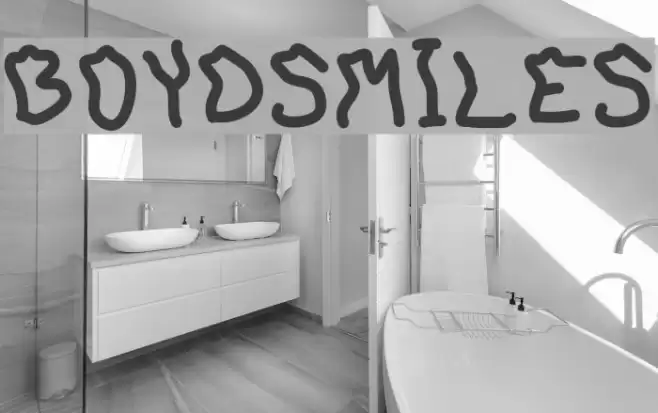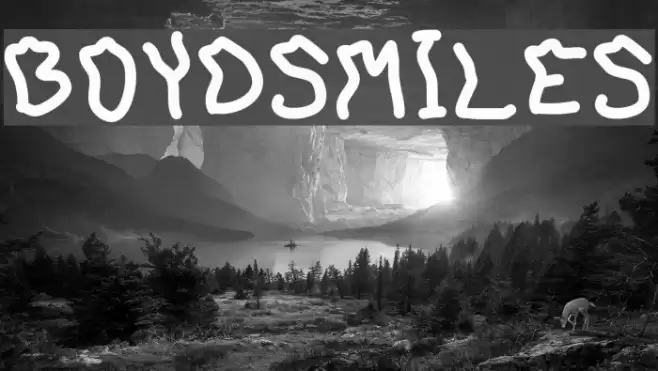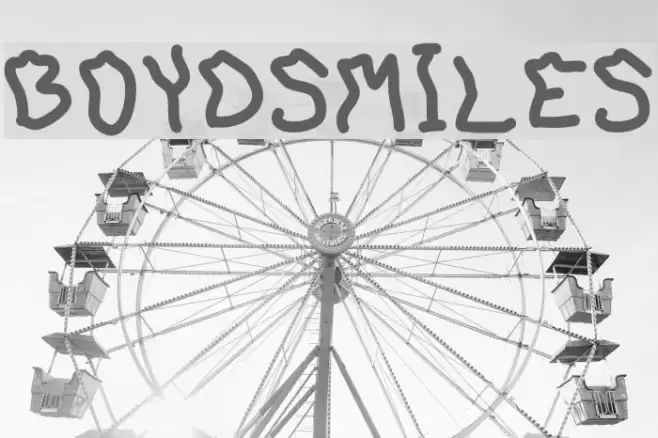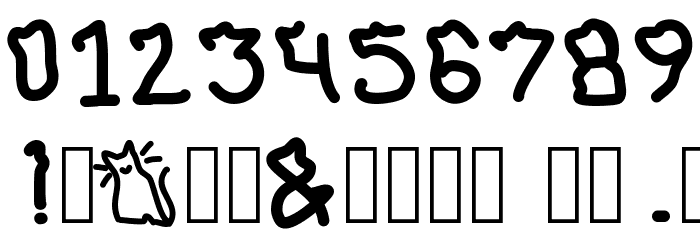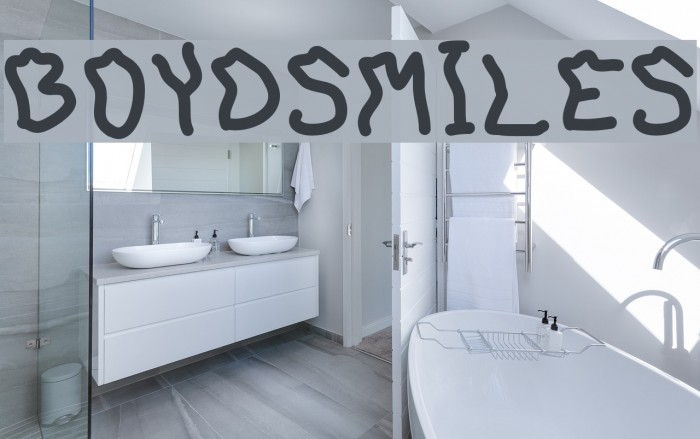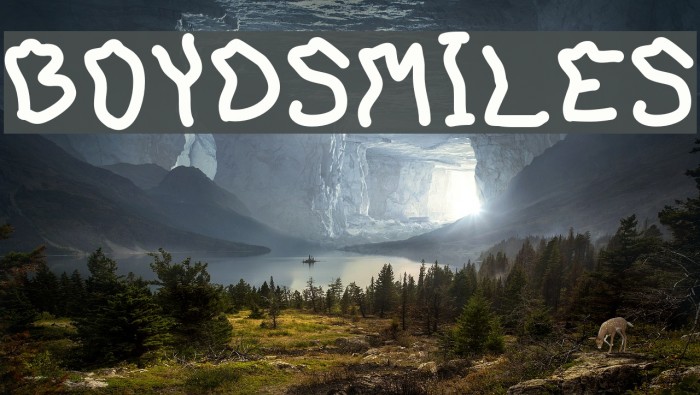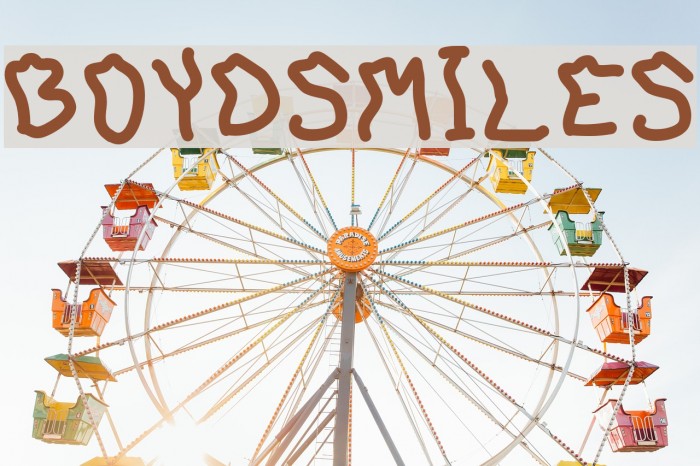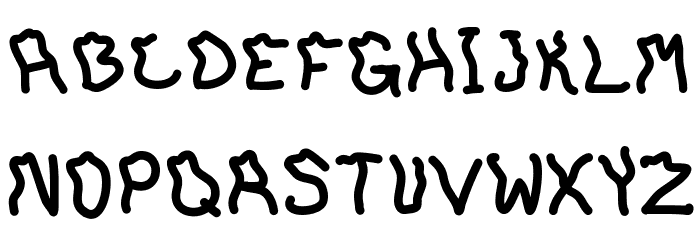
BoydSmiles Font
BoydSmiles Description
This playful and quirky font features bold, rounded strokes with a hand-drawn aesthetic. The characters exhibit a whimsical, uneven quality, giving them a lively and informal appearance. The uppercase and lowercase letters maintain a consistent style, with exaggerated curves and a slightly irregular baseline that adds to the font's charm. Numbers and special characters follow the same playful design, making the font versatile for creative projects. Its boldness ensures readability while the unique style makes it stand out, perfect for designs that require a touch of fun and personality.
A playful, hand-drawn font with bold, rounded strokes and a whimsical style.
- Proposed Projects: Ideal for children's book covers, playful branding, greeting cards, and creative posters.
- Category: Handwritten